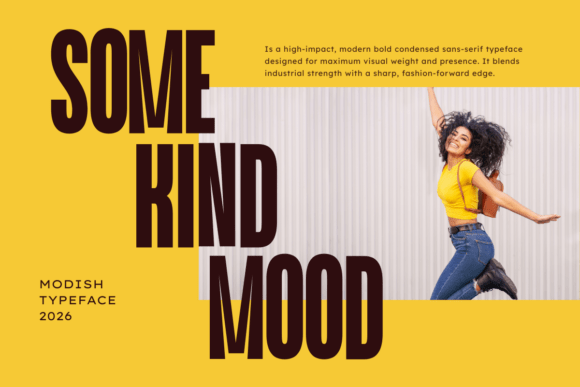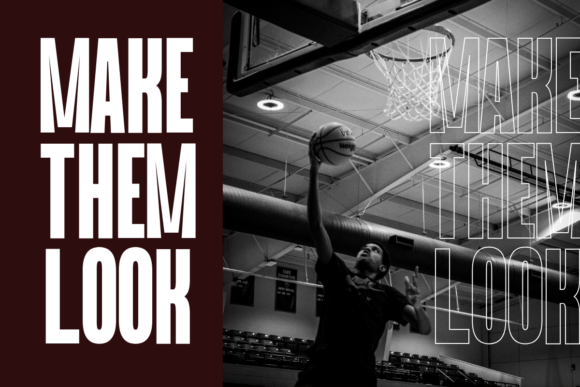
Introduction to Modish Font
Modish is a high-impact, modern bold condensed sans-serif typeface designed for maximum visual weight and commanding presence.
It perfectly blends industrial strength with a sharp, fashion-forward edge, making it an essential tool for designers who need to create bold and unforgettable visual statements This typeface features tall, sturdy characters that excel in high-pressure design environments such as editorial covers, luxury branding, and cinematic titles.
Key Features of Modish Font
Why Choose Modish Font?
Modish Font offers exceptional quality and versatility, making it a valuable addition to your design toolkit. Whether you’re creating for personal projects or commercial use, Modish Font delivers professional results.